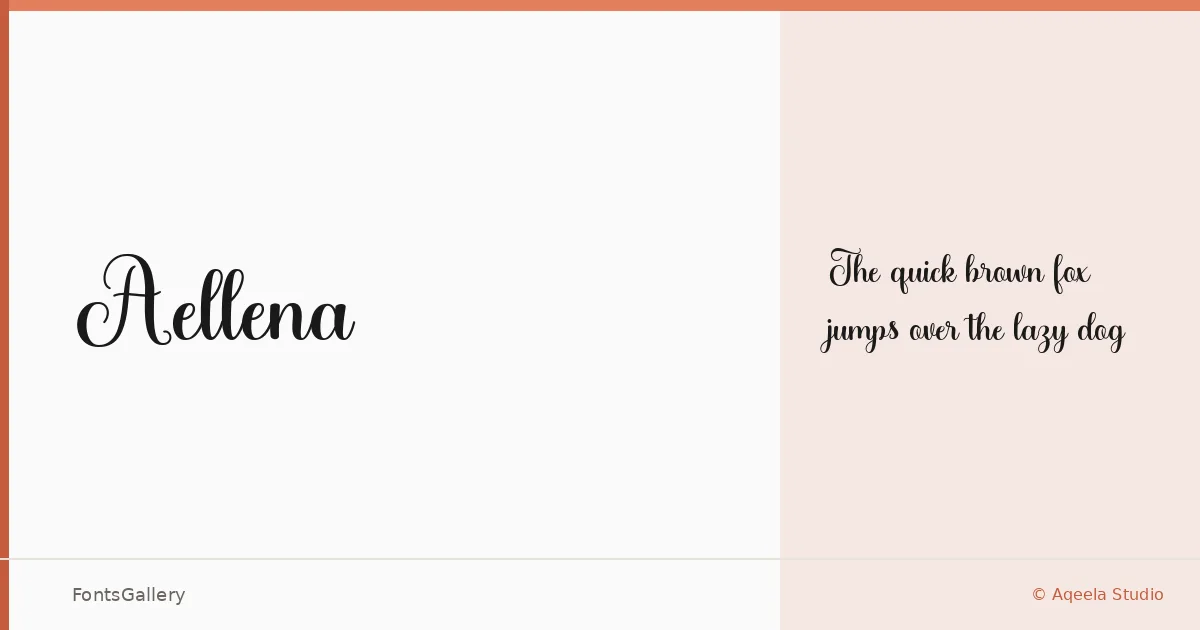
About Aellena Font
There is a deliberate softness to this script — the strokes ease into their curves without urgency, carrying the kind of unhurried elegance that suits formal occasions. Muhammad Nasir created it under the Aqeela Studio banner, releasing a single Regular weight that leans into classic calligraphic tradition while staying clean enough for contemporary use.
The letterforms sit in romantic, classic territory — flowing connections, refined stroke contrast, and a mood that reads as both intimate and polished. Available in TTF and OTF as a single Regular cut, the script carries its weight confidently without needing a full range of styles; the draw here is in the detail of individual glyphs and how they link across a line of Latin text.
It finds its natural home on wedding invitations, greeting cards, and ceremony stationery where that romantic character earns its place. Logo lockups and social media headers benefit from its legibility at display sizes. When you need to balance it with body copy or supporting type, it pairs well with Canela, Helvetica, Anglecia Pro, Abrade, and AQUA — each bringing a different contrast, from editorial serif warmth to clean geometric cool.